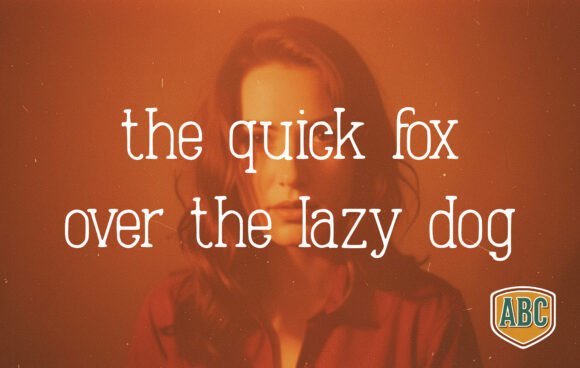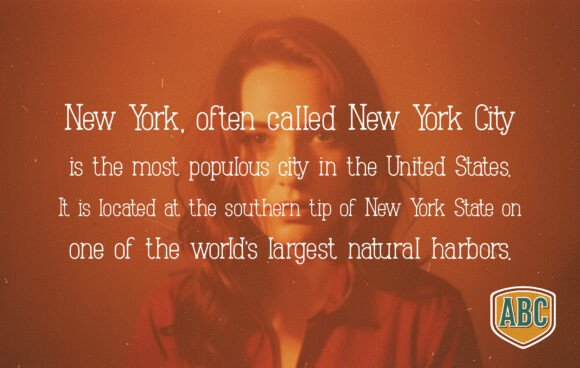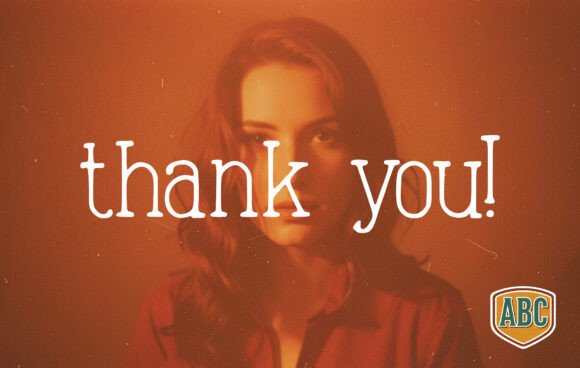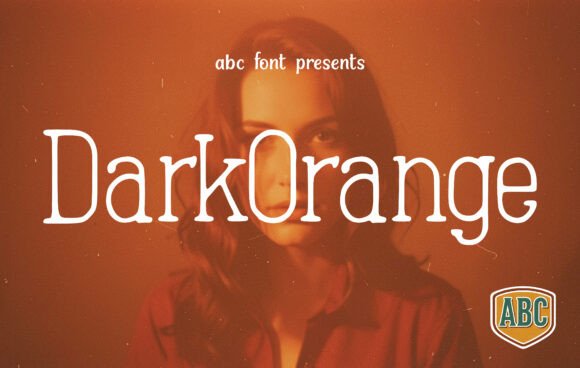
Introducing DarkOrange Font: The Perfect Blend of Modern Minimalism and Artistic Flair
Step into a world where contemporary minimalism meets artistic flair with DarkOrange, a slender, tall display font designed for those who want to make a sophisticated yet approachable statement. This unique font offers a blend of clean, elongated lines and charmingly rounded terminals, creating a sleek “modern-retro” aesthetic that feels both fresh and nostalgic.
DarkOrange features a high x-height and narrow proportions, making it exceptionally versatile for vertical spaces and impactful headers. Its soft, hand-drawn quality provides an organic touch, ensuring your designs feel human and curated rather than sterile. The font’s slender, tall design makes it perfect for creating a sense of elegance and sophistication in your designs.
Best Use Cases
DarkOrange is an incredibly versatile font that can be used in a variety of design projects. Here are some of the best use cases for this stunning font:
- Chic Branding: Ideal for fashion labels, beauty brands, and lifestyle startups looking to create a sophisticated and modern brand image.
- Cinematic Titles: Perfect for film posters, book covers, and evocative digital headers that require a touch of elegance and glamour.
- Social Media Aesthetic: Create “Instagram-ready” quotes and stories with DarkOrange’s unique and stylish design.
Why Choose DarkOrange?
DarkOrange offers a range of benefits that make it an excellent choice for designers and crafters. Here are some reasons why you should consider using DarkOrange in your next design project:
- Unique Aesthetic: DarkOrange’s modern-retro aesthetic sets it apart from other fonts, making it perfect for designers looking to create something distinctive.
- Versatility: The font’s slender design and high x-height make it suitable for a range of design projects, from branding and advertising to film and social media.
- Organic Touch: DarkOrange’s soft, hand-drawn quality adds an organic touch to your designs, making them feel more human and curated.
Design Tips and Tricks
To get the most out of DarkOrange, here are some design tips and tricks to keep in mind:
- Pair with Bold Colors: DarkOrange looks stunning when paired with bold, bright colors. Experiment with different color combinations to create a unique look.
- Use in Vertical Spaces: The font’s narrow proportions make it perfect for vertical spaces, such as social media headers and film posters.
- Add Texture and Patterns: Add texture and patterns to your designs to give them an extra layer of depth and interest.
DarkOrange is a stunning display font that offers a unique blend of modern minimalism and artistic flair. Its sleek design, versatility, and organic touch make it perfect for a range of design projects, from branding and advertising to film and social media. Whether you’re a designer or crafter, DarkOrange is an excellent choice for anyone looking to create sophisticated and stylish designs.